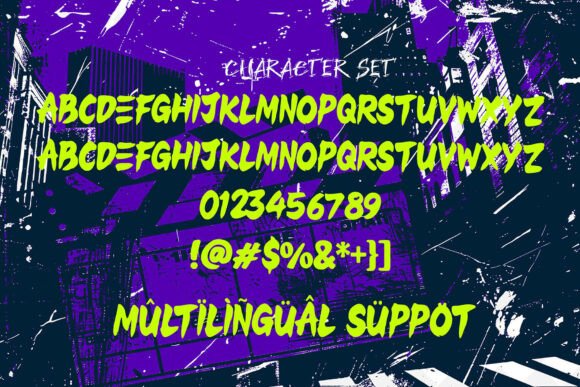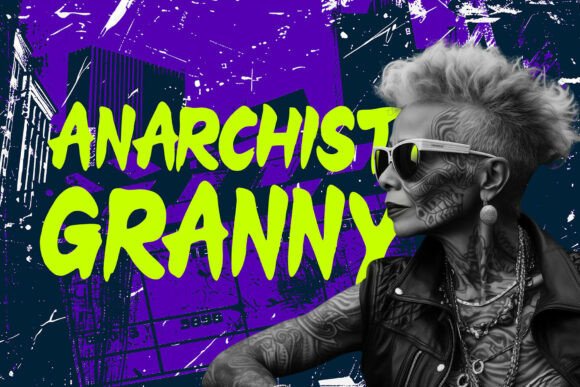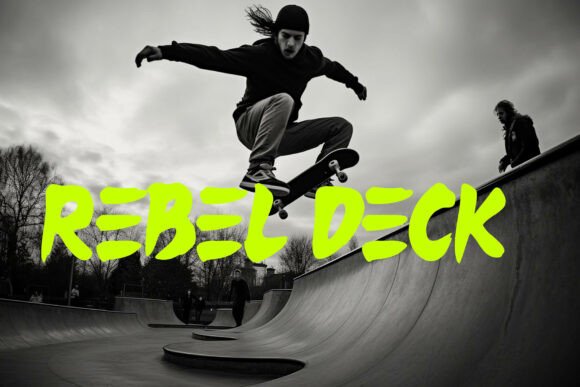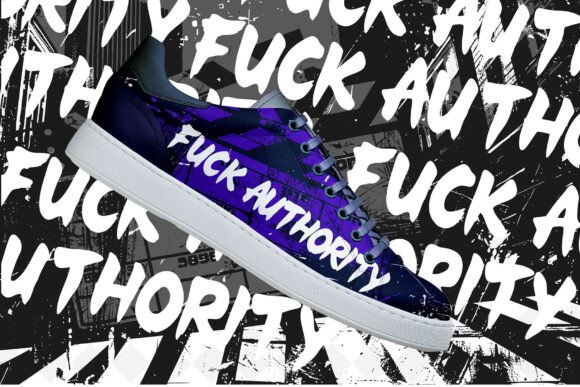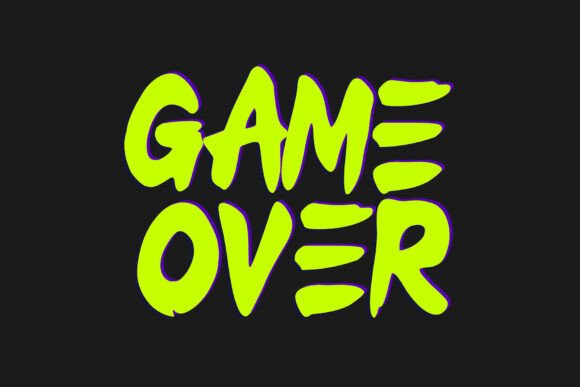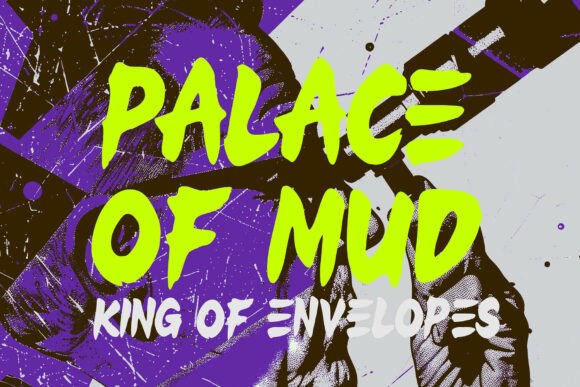
Introduction to Chicken Punk Font
Do you remember that moment when you felt an insatiable urge to express your creativity and challenge the status quo? For designers, it’s that spark of inspiration that fuels their passion for innovative projects. If you’re looking for a font that embodies the rebellious spirit of punk and the raw energy of street culture, look no further than the Chicken Punk Font. This daring graffiti display font is designed to unleash your defiant creativity and make a powerful statement with every word.
The Chicken Punk Font is more than just a design resource – it’s a high-quality, free download that’s perfect for creative projects that demand a bold, edgy look. With its hefty strokes, untamed edges, and oozy details, this font exudes a wild, handcrafted aura that’s reminiscent of city streets and punk flyers. Whether you’re designing a poster, flyer, or social media graphic, the Chicken Punk Font is the perfect choice for designers who want to add a touch of raw energy to their work.
One of the standout features of the Chicken Punk Font is its transparent background, making it easy to layer over other design elements and create a cohesive look. So why settle for a bland, generic font when you can unleash your creativity with the Chicken Punk Font? Download this free design resource today and add a touch of rebellious flair to your next creative project.
Key Features of Chicken Punk Font
- High-quality design suitable for creative projects, including posters, flyers, and social media graphics.
- Features a unique, edgy style with bold lines and distressed textures, perfect for punk rock or alternative music-inspired designs.
- Perfect for designers looking for a bold, eye-catching font to add a touch of personality to their creative projects.
Honest Review: Chicken Punk Font
I recently stumbled upon the Chicken Punk Font while searching for the perfect design resource for a creative project. I was excited to give it a try, and I’m glad I did. The font is a high-quality addition to any design, and it’s available as a free download, which is always a bonus.
One of the standout features of the Chicken Punk Font is its versatility. It can be used for a variety of projects, from bold and edgy designs to more subtle and elegant layouts. The font also has a transparent background, which makes it easy to use on any design without worrying about distracting backgrounds.
- High-quality design: The Chicken Punk Font is well-crafted and visually appealing.
- Transparent background: This feature makes it easy to use the font on any design without worrying about distracting backgrounds.
- Limited character set: The font has a limited number of characters, which may not be suitable for projects that require a wide range of characters.
- Not suitable for small text: The font is best used for larger text sizes, as it can be difficult to read in smaller sizes.
Overall, I’m impressed with the Chicken Punk Font. It’s a great addition to any designer’s collection, and it’s a great resource for anyone looking for a unique and high-quality font. With a little creativity, this font can be used in a variety of projects and designs.
Tips for Getting the Most Out of Chicken Punk Font
For the most creative project results, use the Chicken Punk Font in conjunction with other high-quality design resources. Experiment with different font styles and combinations to achieve a unique look. Make sure to save your design files in a format that preserves the font’s transparency.